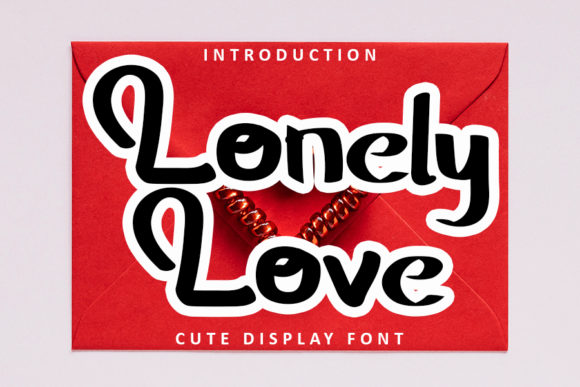
In a world where individuality reigns supreme, your online signature holds the power to make a lasting impression. Introducing Lonely Love Font, the ultimate display font that radiates a symphony of simplicity, all roundness, and cleanliness. Crafted by the visionary hands at FL Space, this font is more than just a collection of characters; it's an open invitation to unlock your creativity and let your personality shine through.
Lonely Love Font is not just another font; it's an experience. With its innate flexibility and jolly spirit, this font has the uncanny ability to breathe life into your designs, transforming them from ordinary to extraordinary. Its endless variations allow you to explore a boundless universe of creative possibilities, ensuring that no two signatures crafted with Lonely Love Font are ever the same.
Imagine the impact of Lonely Love Font gracing your online presence. Whether you're crafting captivating social media posts, designing stunning logos, or personalizing your digital correspondence, this font will elevate your words and make them dance off the screen. Its inherent charm will leave an indelible mark on the hearts and minds of your audience, leaving them yearning for more.
Join the ranks of those who dare to be different, who embrace the beauty of standing out from the crowd. Let Lonely Love Font be your muse, your loyal companion on this journey of self-expression. Discover the endless possibilities that await you when you unleash the power of this remarkable font. The time for conformity is over; it's time to let your true colors shine through. Embrace Lonely Love Font today and embark on a creative odyssey that will leave you breathless.